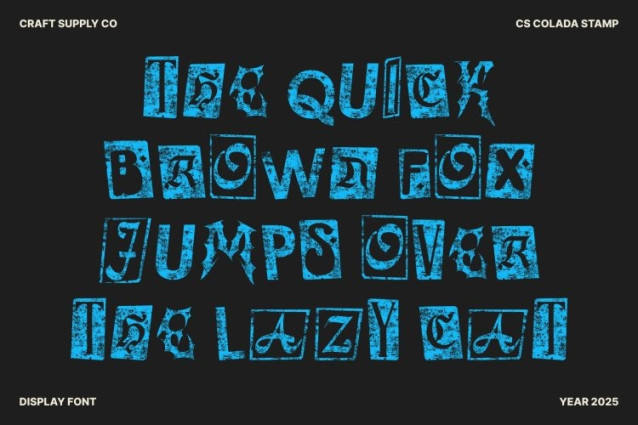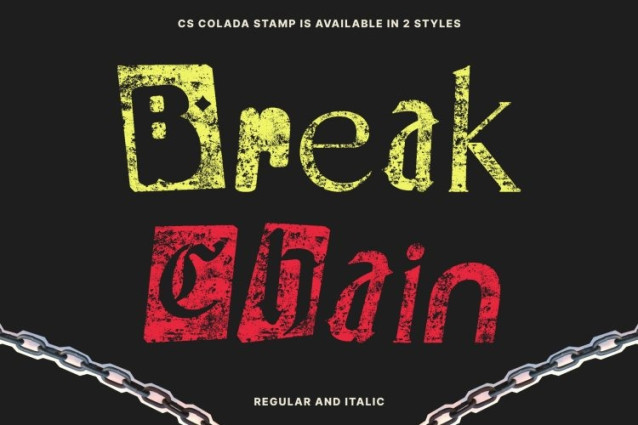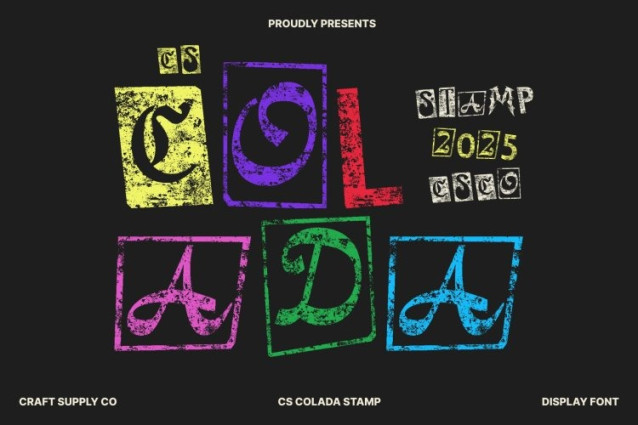
CS Colada Stamp Font This font embraces a chaotic and unruly design language inspired by classic ransom-note typography. Its cut-and-paste letter shapes create an unpredictable, mismatched look that radiates rebellion and raw energy. Each character feels intentionally fragmented, giving your designs a bold, unconventional presence.
Edgy Visual Impact for Bold Statements
With its disruptive style, this font is perfect for grabbing attention. Its irregular forms, sharp contrasts, and expressive arrangement make it ideal for posters, edgy branding, and album covers that demand a daring and unapologetic vibe. This font turns every title into a visual shout, ensuring your message stands out loud and clear.
Artistic Depth Through Stamp Texture
Enhanced with a textured stamp effect, gains an artistic, handcrafted feel. The rough, worn details amplify its renegade personality, adding grit and authenticity to its already rebellious form. This combination of texture and chaos makes the font feel tactile, raw, and visually compelling.
Perfect for Creative, Disruptive, and Experimental Designs
Whether you’re crafting protest-themed posters, underground event graphics, or bold editorial layouts, delivers the impact you need. Its ransom-style aesthetic and artistic texture make it a powerful choice for designers who want to break rules, challenge norms, and create work that’s unmistakably unique.